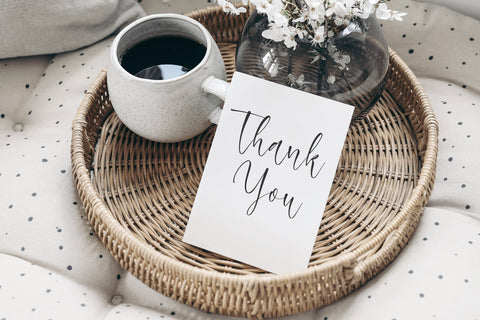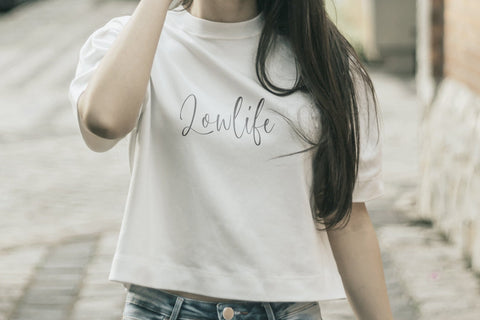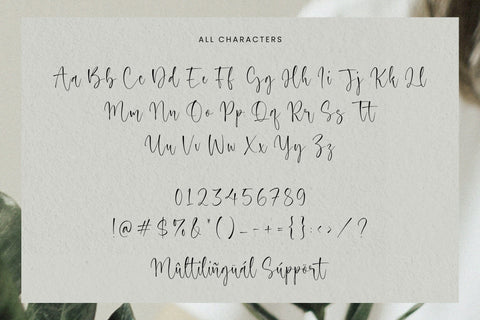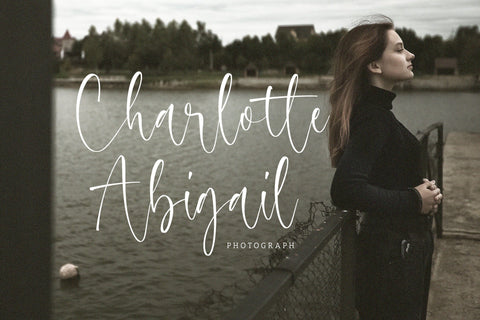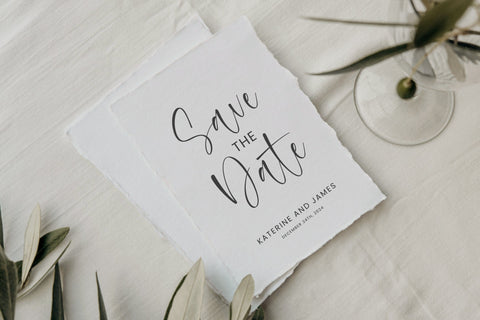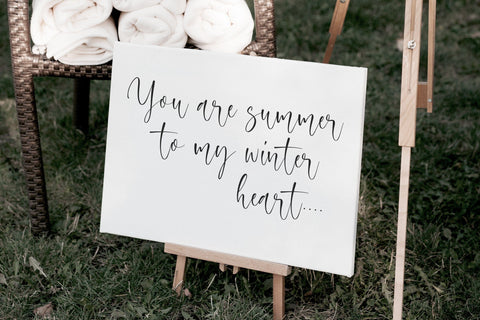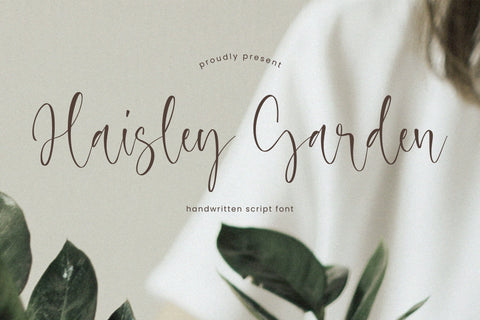
Haisley Garden - Handwritten Script font
Proudly Present, Haisley Garden
Haisley Garden - Handwritten Script font , which was created with great care and specially created for you
Haisley Garden is perfect for product packaging, branding project, megazine, social media, wedding, or just used to express words above the background.